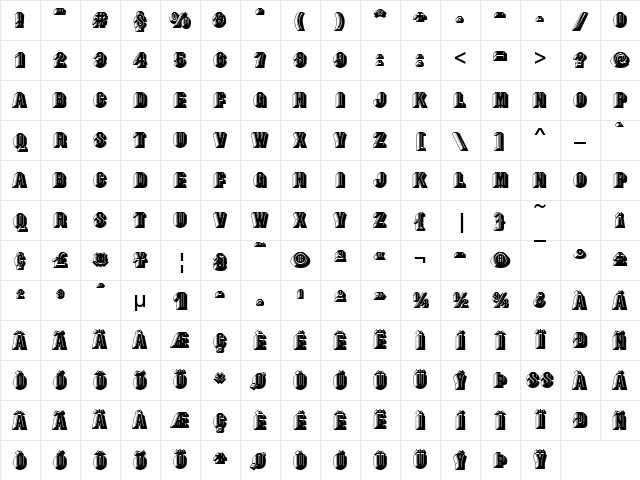
BuxomD Regular
Design Context for BuxomD
BuxomD is a composed and adaptable typeface that performs quietly and consistently across a wide range of design contexts.